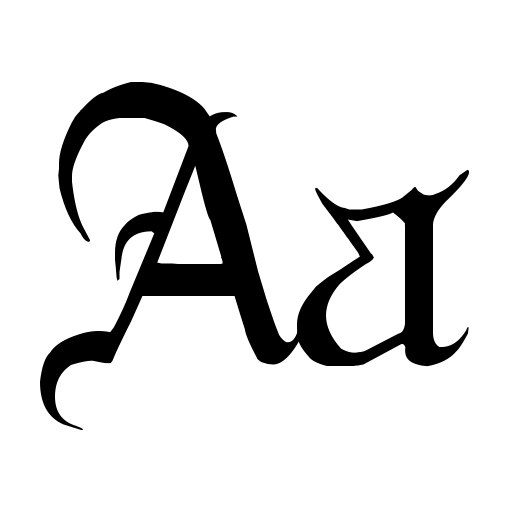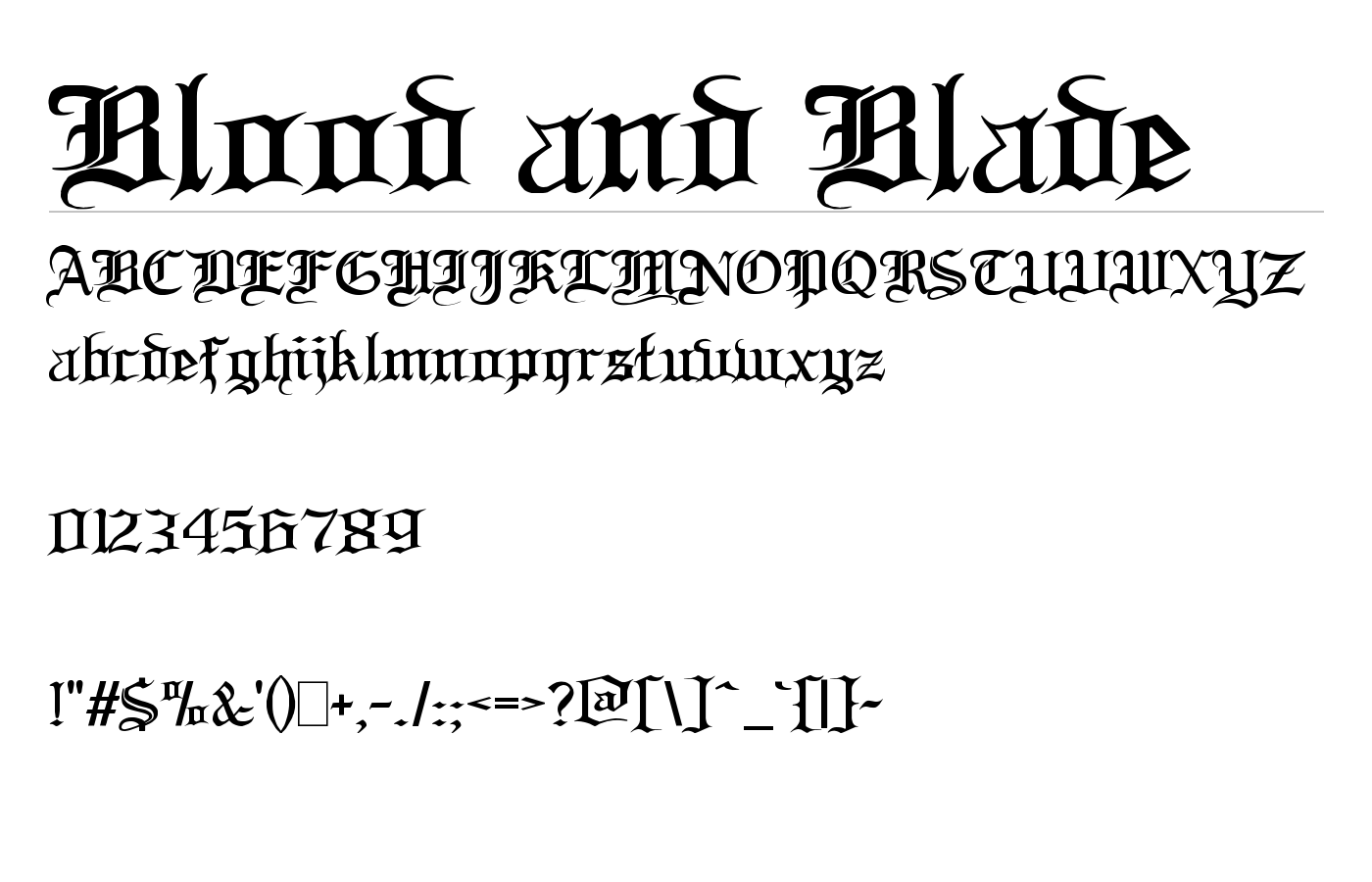
Blood and Blade is a blackletter serif font with sharp, dramatic strokes and high contrast between thick and thin lines, evoking a medieval, gothic style. Its bold, intricate letterforms carry a strong historic and mysterious vibe, making it perfect for branding, posters, or editorial designs that need a dark, vintage, or fantasy feel. This font works best in display settings where its ornate details can make a striking and memorable impression.
Blood and Blade Font
About Blood and Blade Font